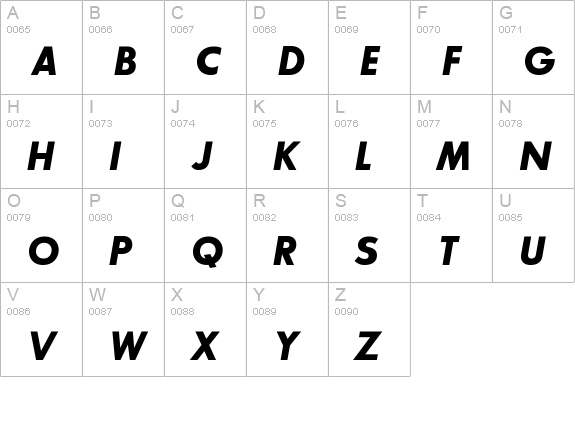
SansSerifBldFLF-Italic Font Details
The SansSerifBldFLF-Italic font is a beautifully crafted typeface that effortlessly combines sleek modernity with a touch of elegance. Its bold and italicized design adds a unique flair to any project, making it perfect for both professional and creative endeavors. This font's clean lines and fluid curves create a sense of dynamism and sophistication, ensuring that your text stands out with a sense of style and professionalism. Whether you are designing a logo, creating eye-catching headlines, or crafting stunning invitations, the SansSerifBldFLF-Italic font will elevate your work to new heights. One of the best features of this font is that it is freely available to download at FontsMarket.com. This means that you can easily access and use this font in your projects without any additional cost. Its availability for free allows you to experiment and explore various design possibilities without any limitations. With its versatility and timeless appeal, the SansSerifBldFLF-Italic font is suitable for a wide range of design projects. Its bold and italicized nature adds emphasis and visual interest to your text, ensuring that it captures the attention of your audience. Whether you are a graphic designer, a web developer, or a content creator, the SansSerifBldFLF-Italic font is a valuable addition to your font library. Its sleek and sophisticated design will enhance any project, giving it a professional and polished look. Download the SansSerifBldFLF-Italic font for free at FontsMarket.com and unlock the potential to create stunning designs that leave a lasting impression.